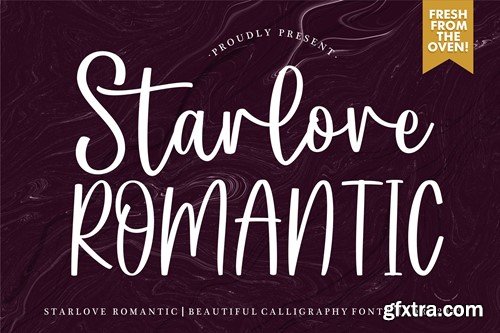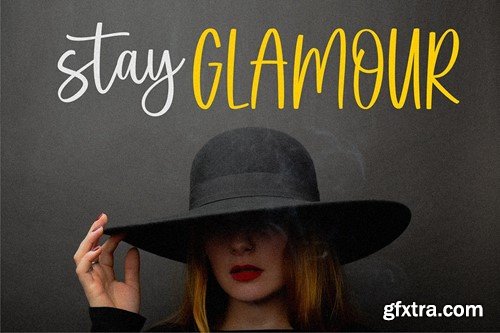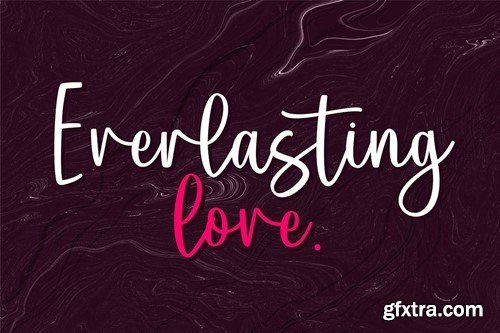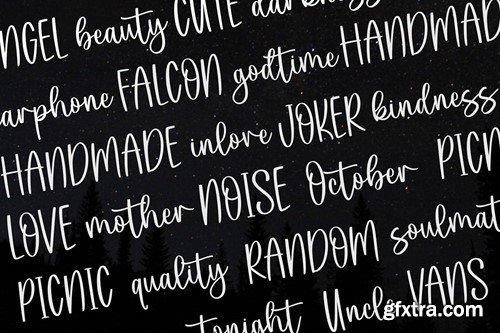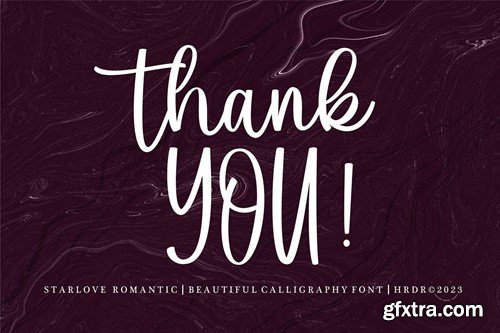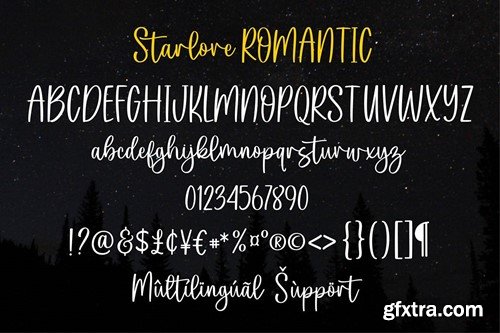
星空浪漫 - 美丽书法字体 QBZRC33
Starlove Romantic - Beautiful Calligraphy Font
Starlove Romantic Font is a Beautiful Calligraphy Font. It's perfect for branding, wedding invitations, photography, Neon Sign, bloggers, logos, greeting cards, Logo, Quotes and more. Font Features : All of features and special characters of this font are included in one file. So it is easy to accessed by using program or software that support the opentype like Adobe Illustrator, Adobe Photosop, and Adobe Indesign). Starlove Romantic files with OTF and TTF file and support PUA Encoded font files for use with software that doesn't support OpenType features such as Silhouette, Inkscape, etc.